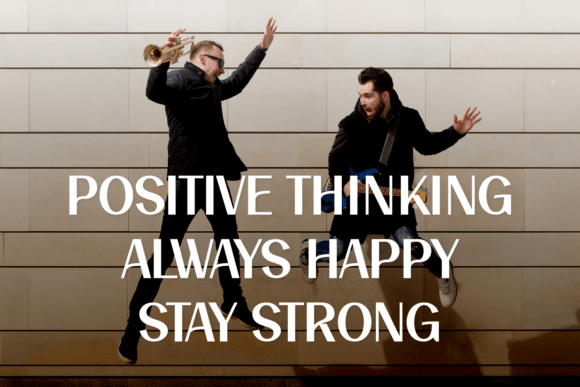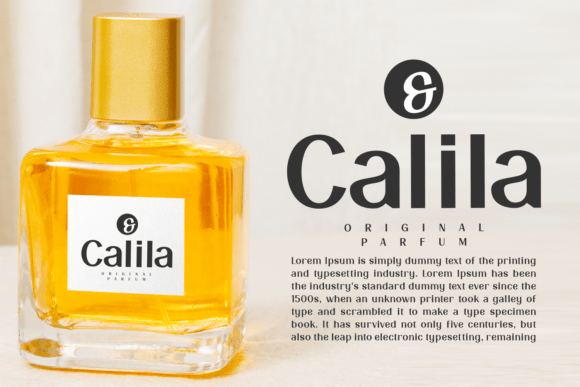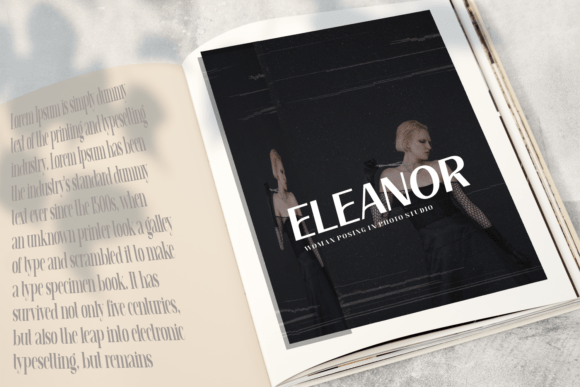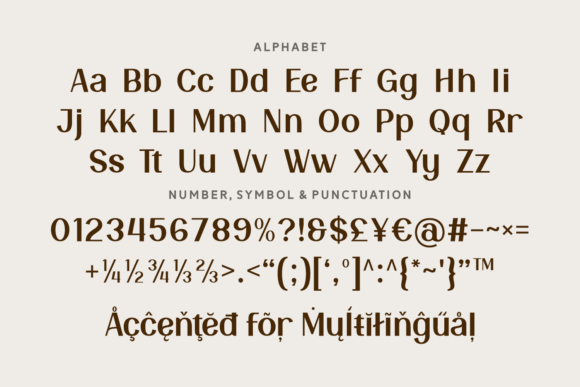
Introduction to Rake Font
Rake is a minimalist yet elegant sans serif font that stands out with its stylish curves and unique proportions.
Designed with both simplicity and luxury in mind, itโs ideal for high-end branding, fashion editorials, beauty packaging, lifestyle blogs, and artistic promotional materials The font brings a soft, humanist quality to the clean geometry of modern sans serif design.
Key Features of Rake Font